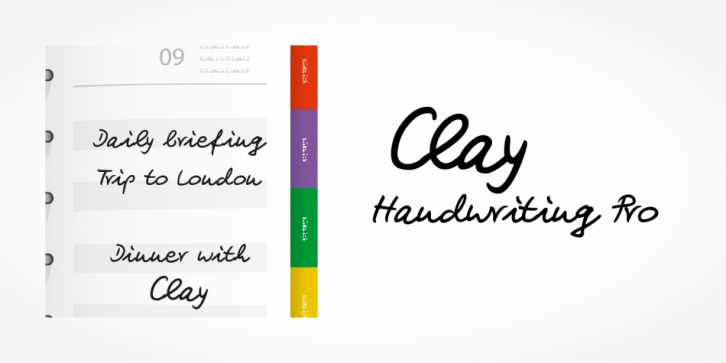
Digitized handwriting fonts are a perfect way to give documents the “very special touchâ€. Invitations look simply better when handwritten than when printed in bland Arial or Times New Roman. Short handwritten notes look authentic and appealing. There are numerous occasions where handwritten text makes a better impression.
Clay Handwriting Pro is a beautiful typeface that mimics true handwriting closely. Use Clay Handwriting Pro to create stunningly beautiful designs easily.
This typeface comes with alternative characters for sophisticated typography – all easily accessible as OpenType features. A “random†feature even allows for automated random switching between variations of the same character, resulting in type that looks authentically handwritten.